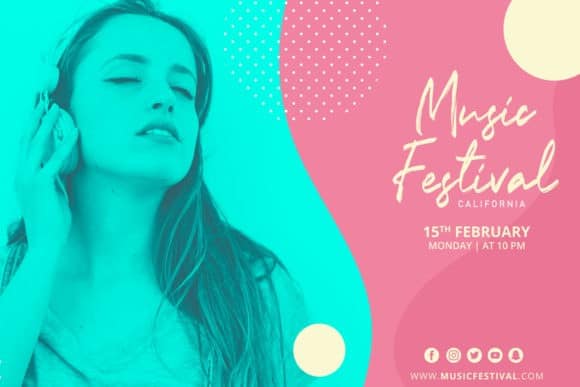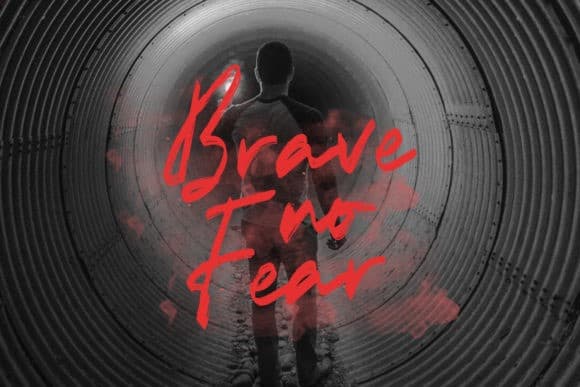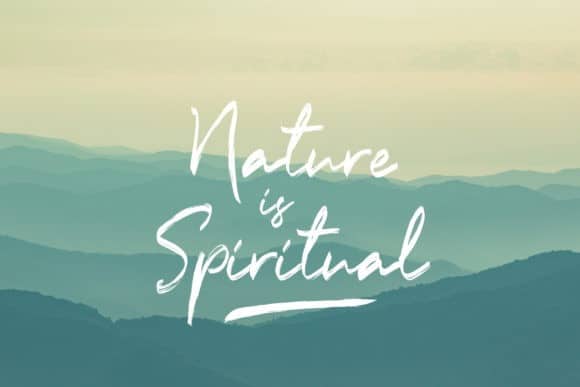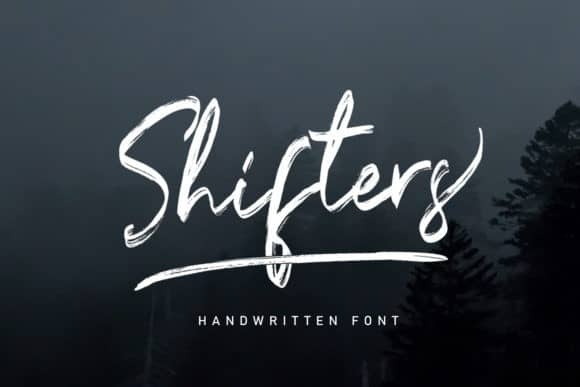
Shifters Brush Font is a brush typeface can make your text appear elegant, luxurious, and modern! Made from font designer named Arendxstudio. Shifters results out of a stunning pairing of a brush pen and pencil that makes it look incredibly endearing and authentic. Use this gorgeous and unique handwritten font to bring any DIY project to life!